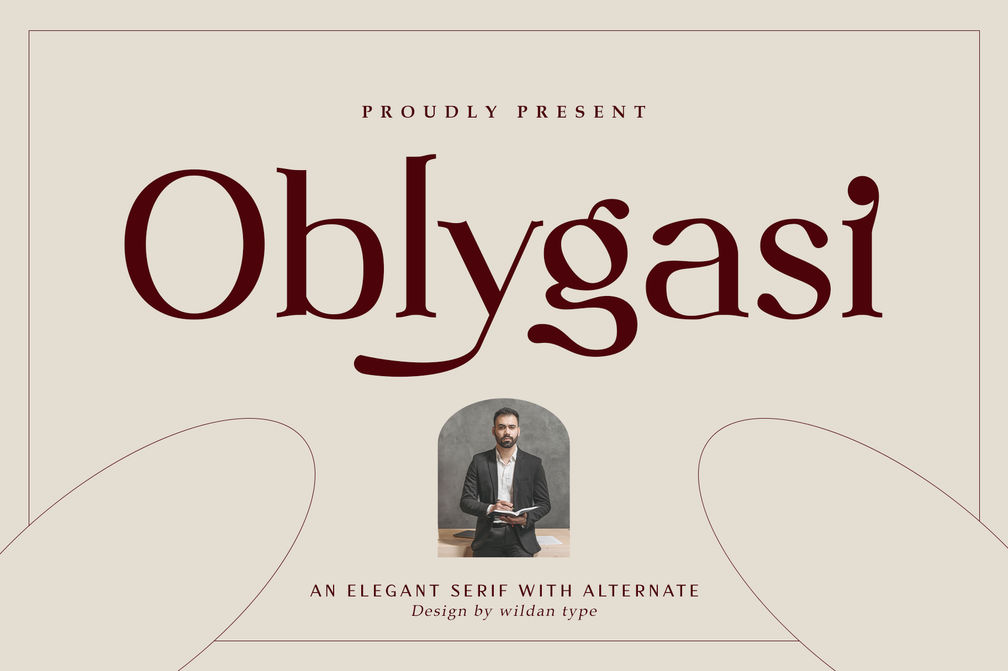
Oblygasi
Oblygasi is a modern serif font with a unique ligature and aletrnate style. A simple serif with a touch of curves on the top and bottom of the stemp gives a special impression. Combaine with high contrast and slat style perfect for feminine logo signs, fashion heads & editorial designs, branding projects, Clothing Branding, packaging, magazine headings, advertising, T-shirts, postcards and much more.